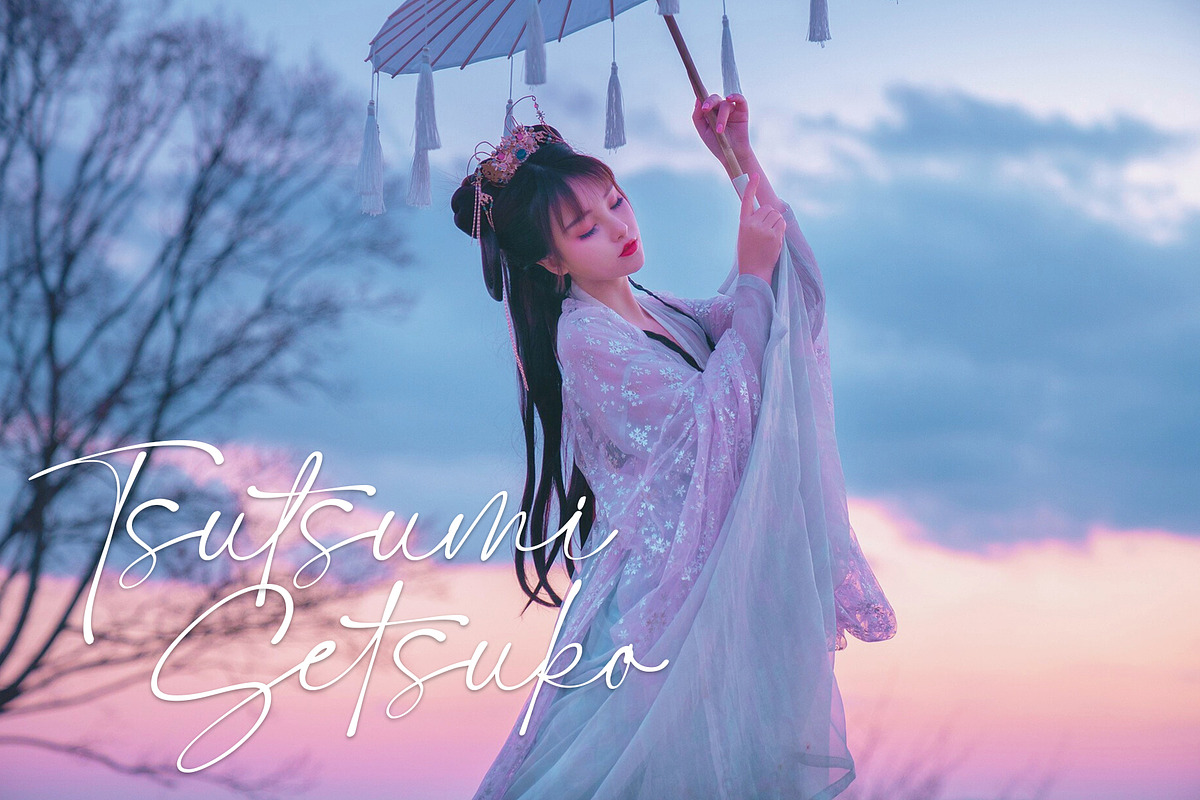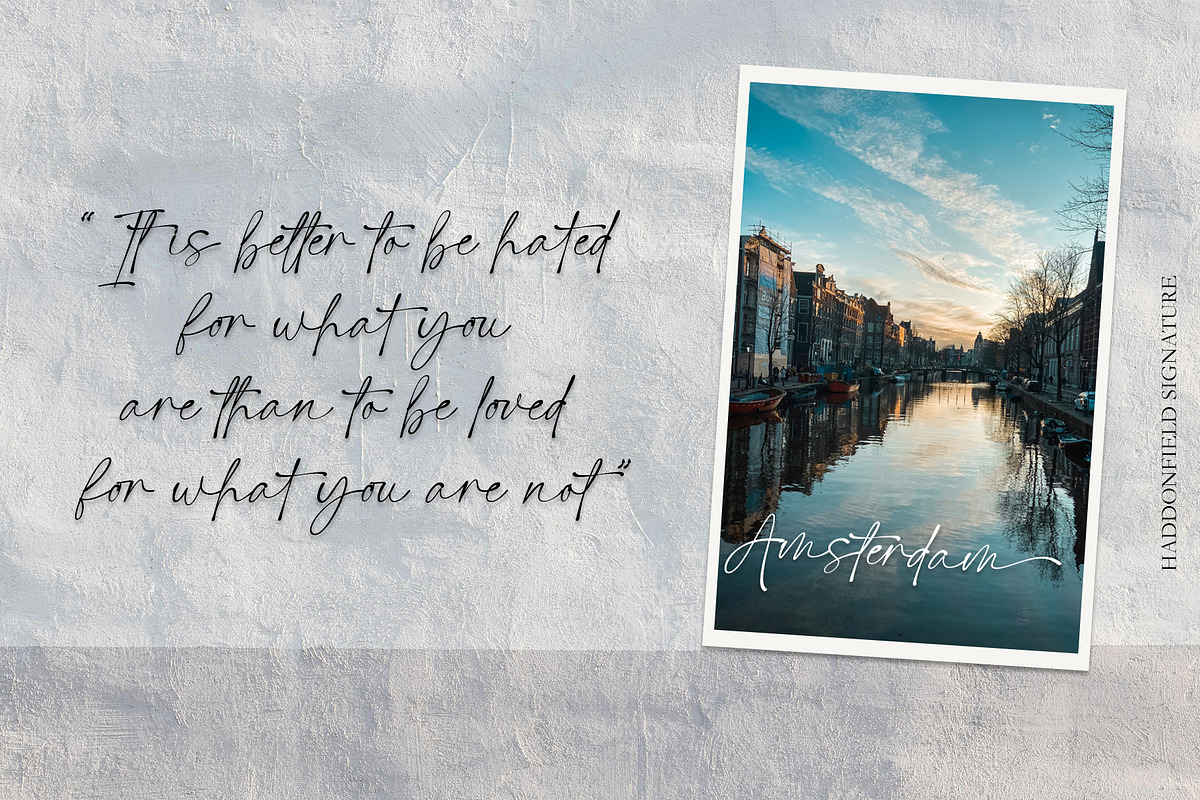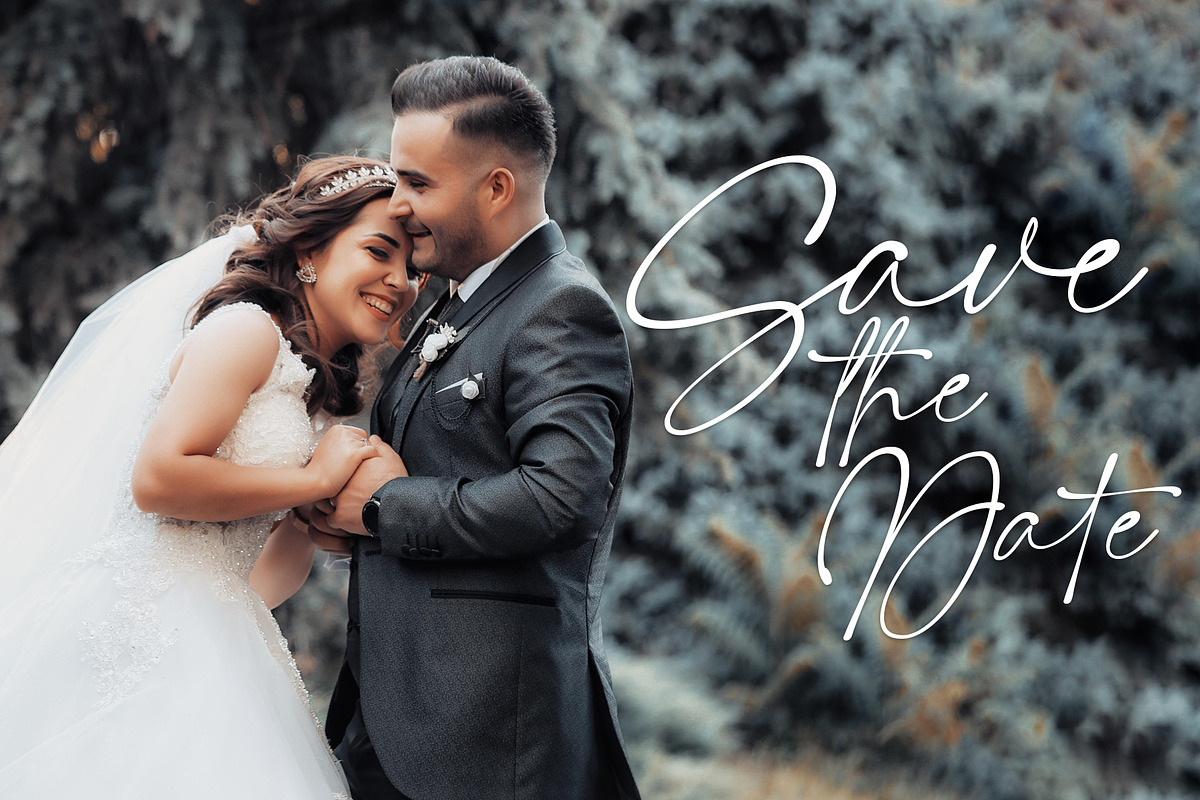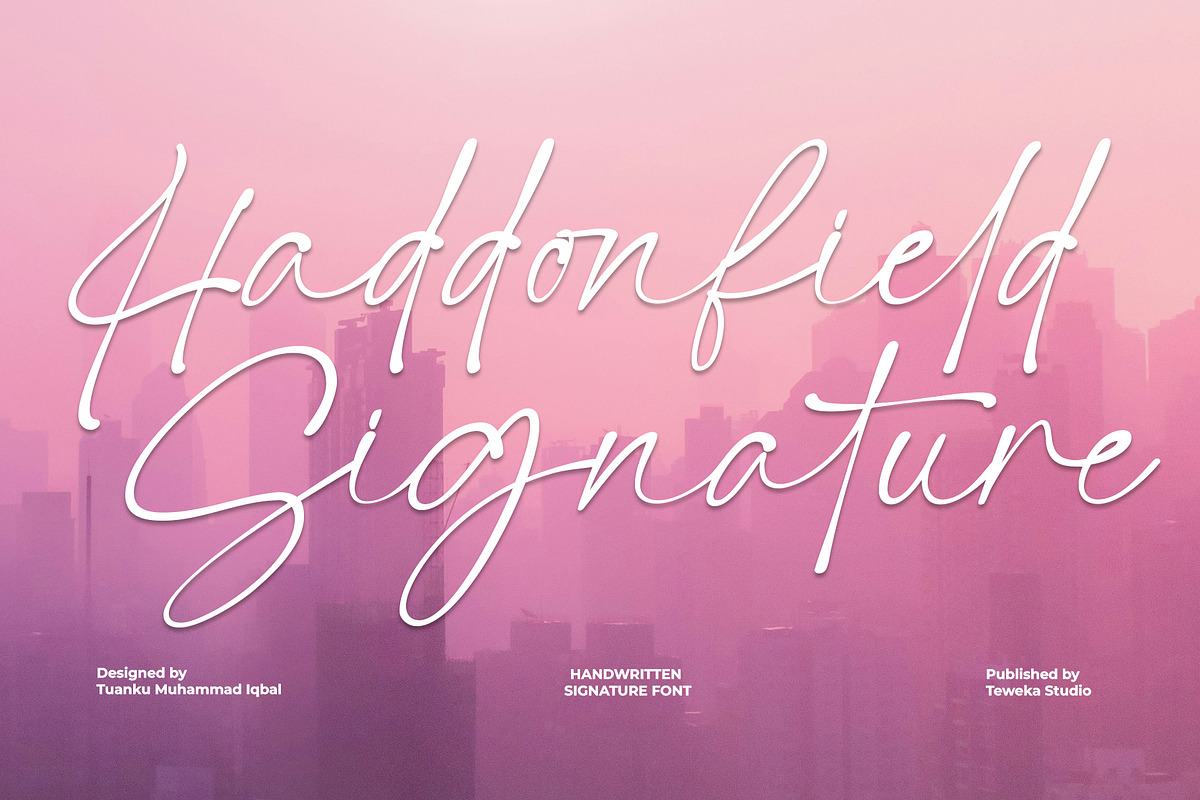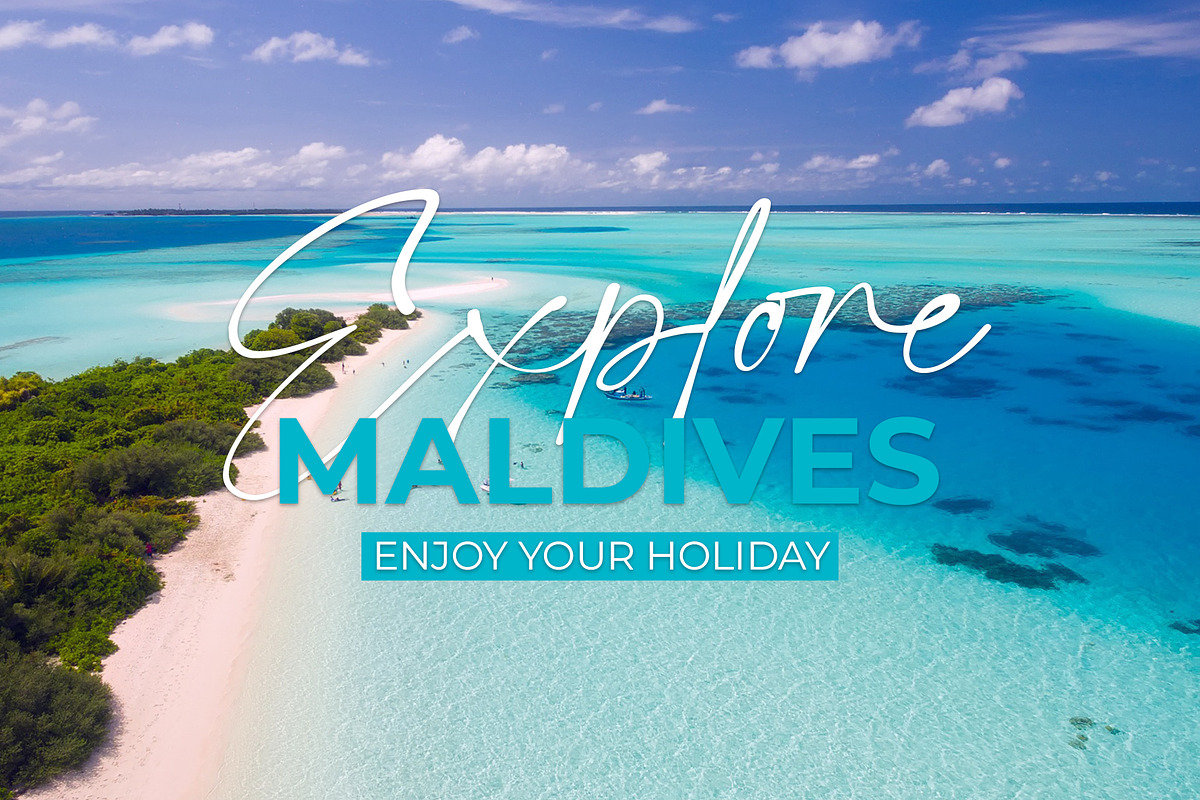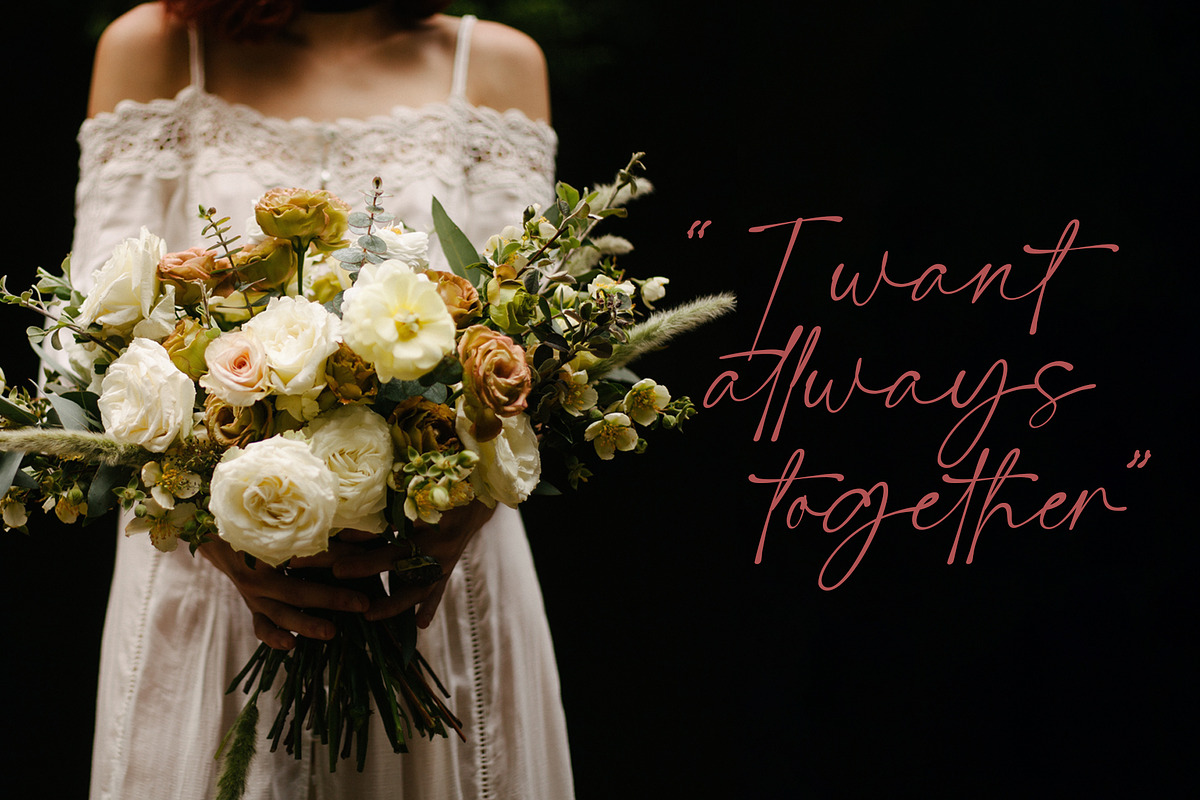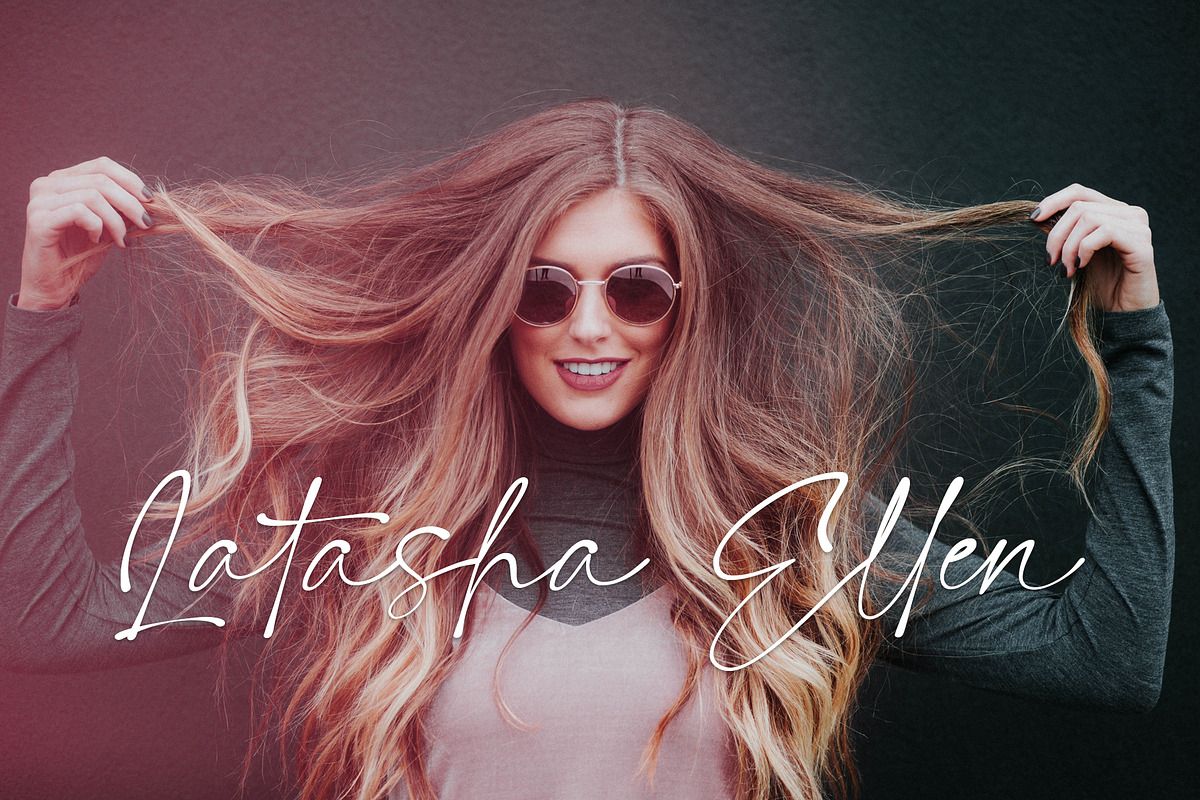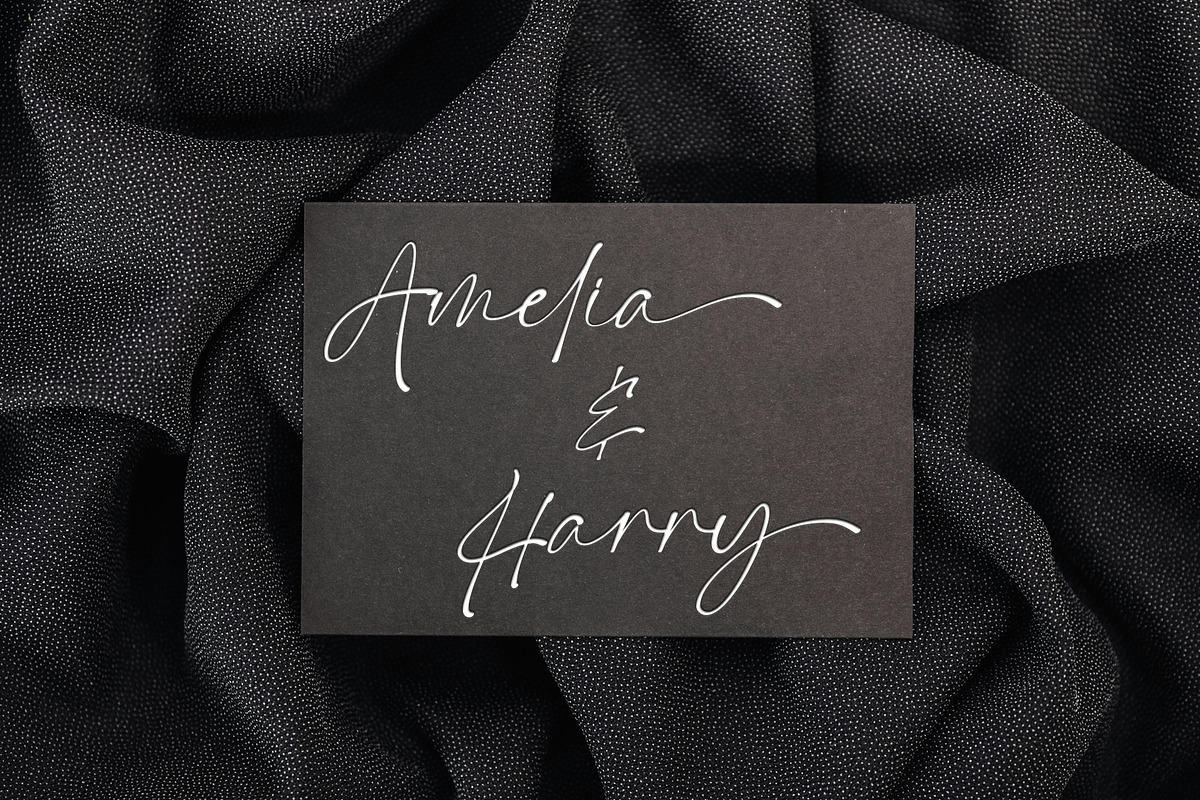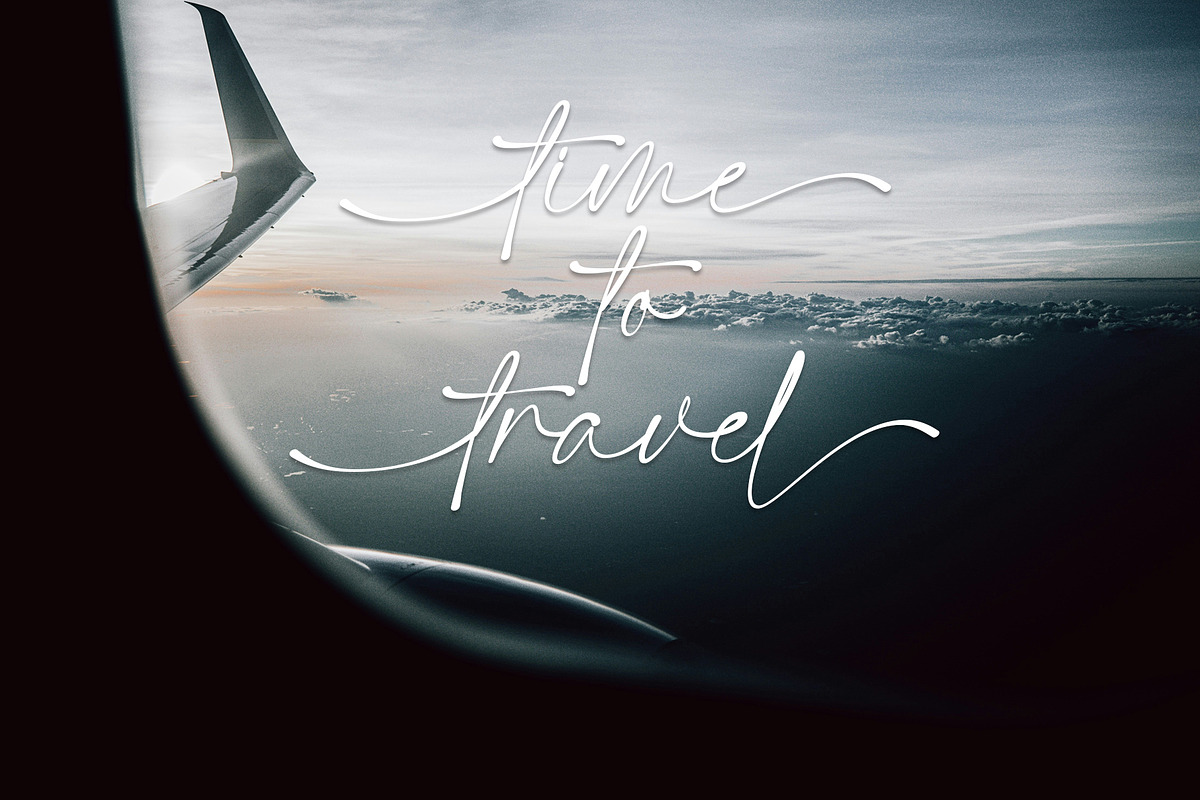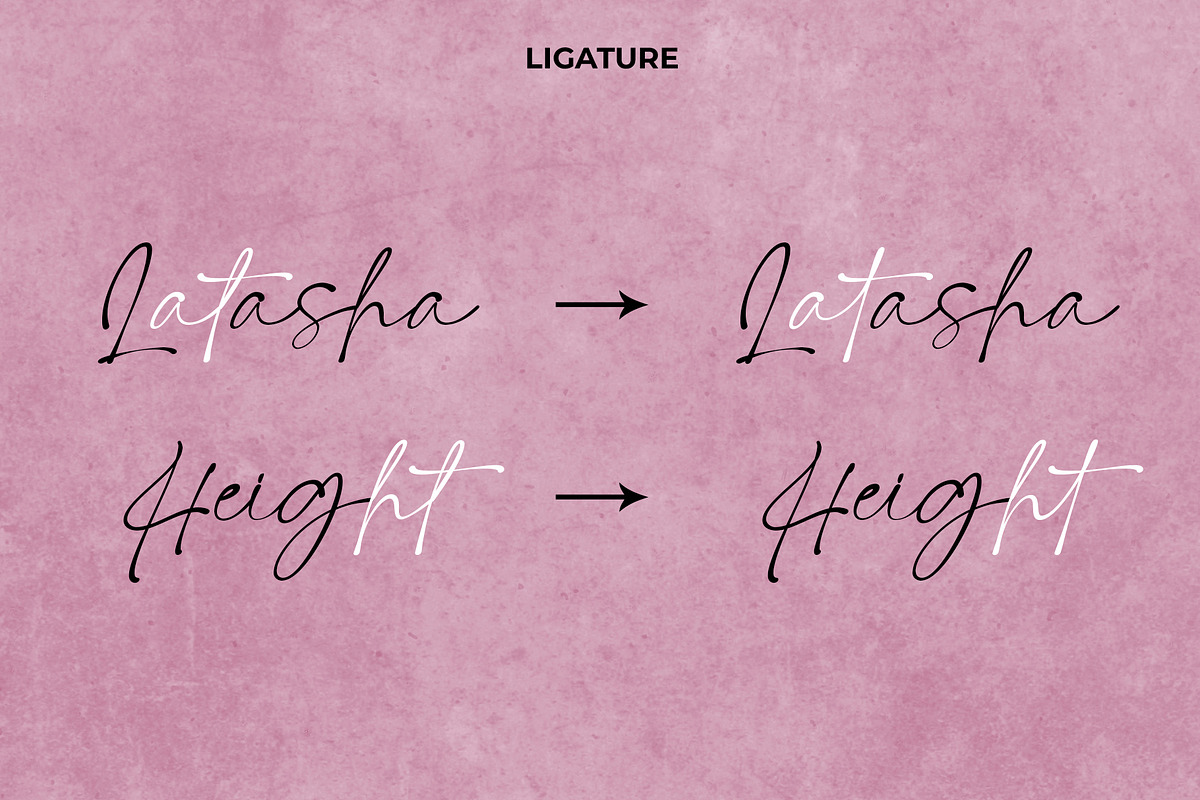
Haddonfield Signature
Good news ! Haddonfield Signature font is a beautiful touch, perfect for branding, social media, logos and more. Haddonfield Signature has 347 glyphs, including ligatures. Haddonfield Signature also gets beginning and ending swashes letters a to z.